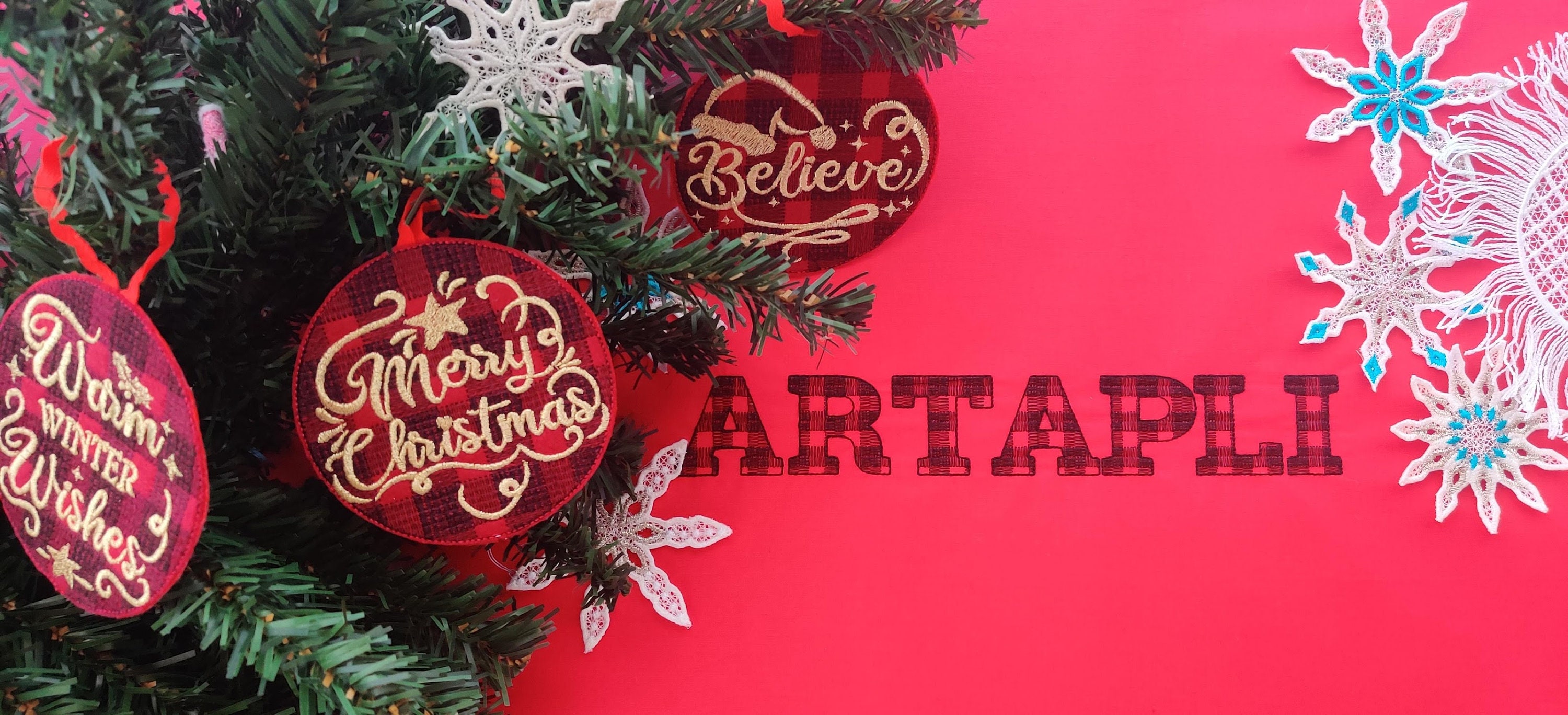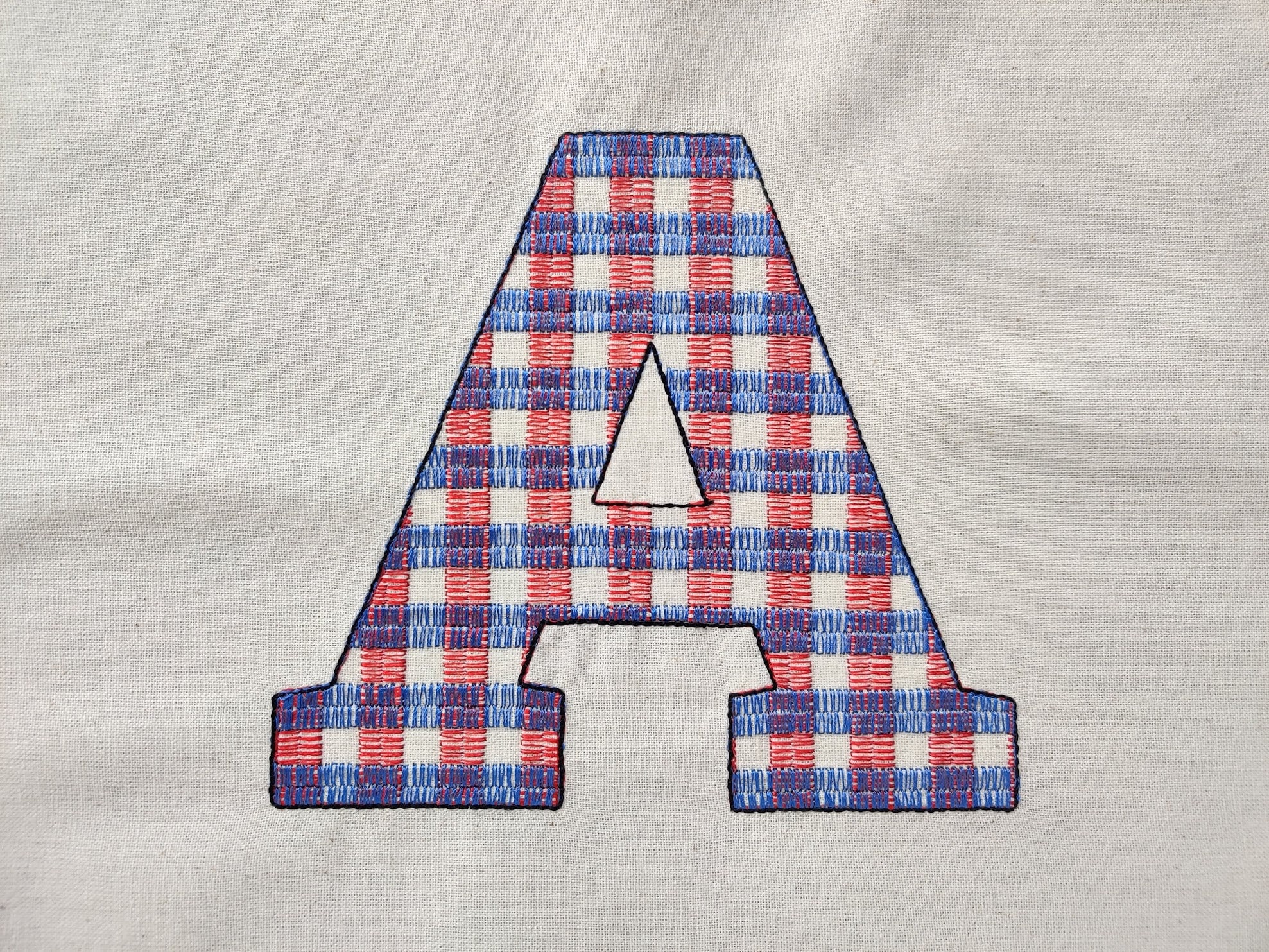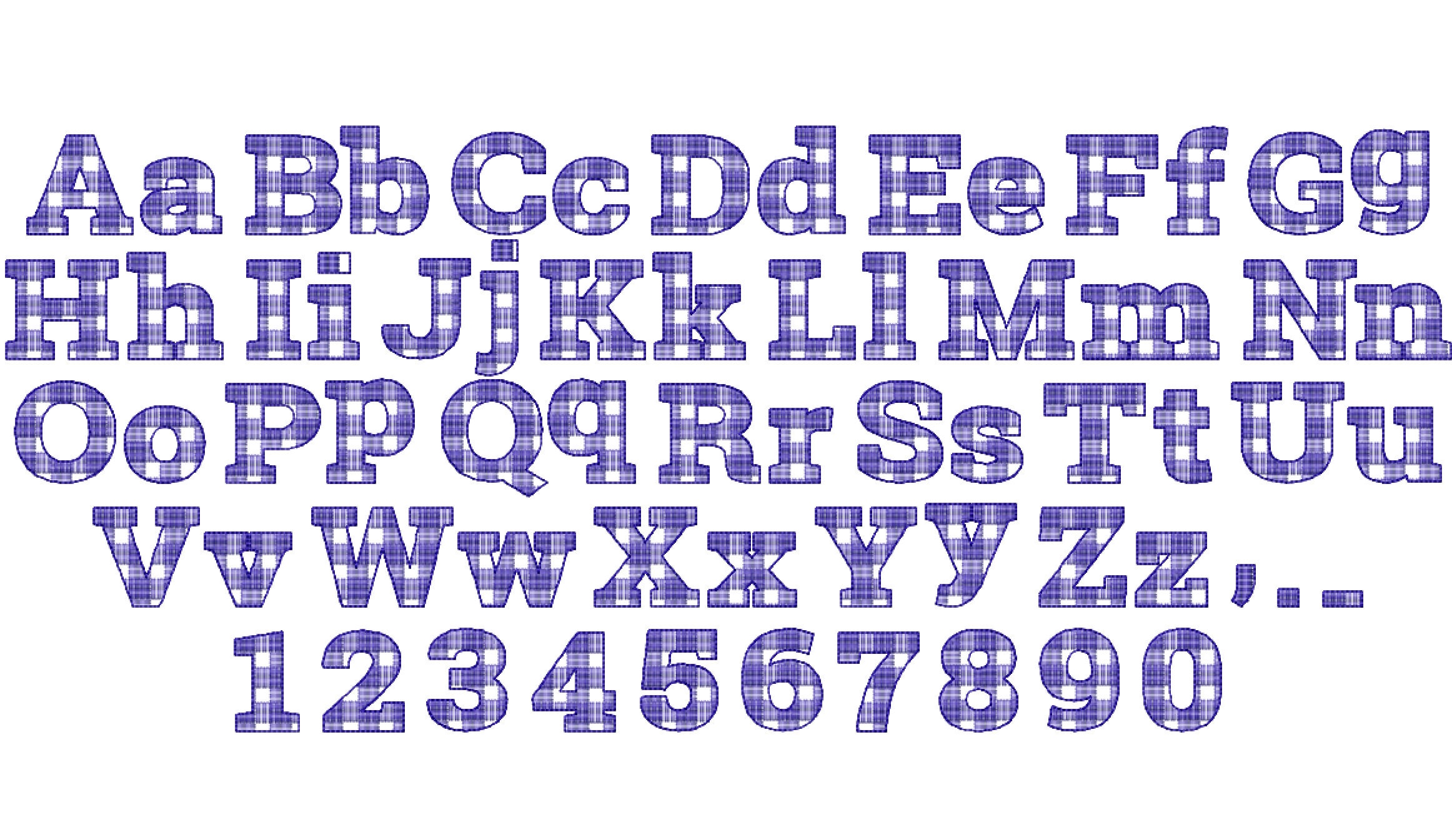
Tartan Plaid Gingham Christmas Font light sketch outline machine embroidery font alphabet letters 1.5, 2, 3 & 4 in BX, vp3, xxx, pes
This is quick stitch designs, they look like like laces, the background fabric look through. Stunning effect. Chevron lines are part of embroidery.
2 inches - shown on photo